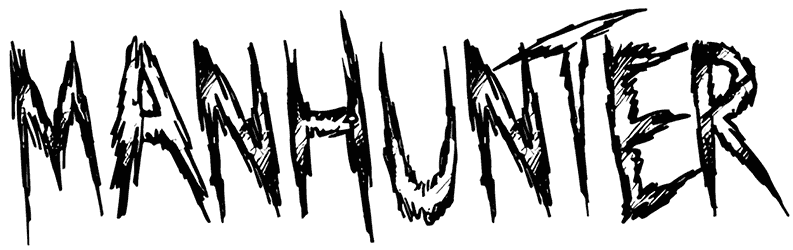
Horsemen Font
About this Font:
Horsemen is a dark-themed font ready to be splattered on your design projects. Inspired by retro, horror and 80’s style artworks and music. Horsemen works best for headlines, shirt-designs, comics, posters, album covers, games and packaging. Now keep your designs sharp and classic!